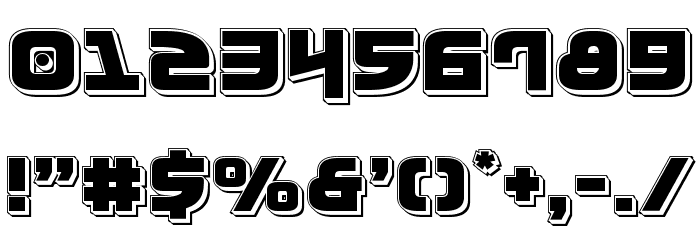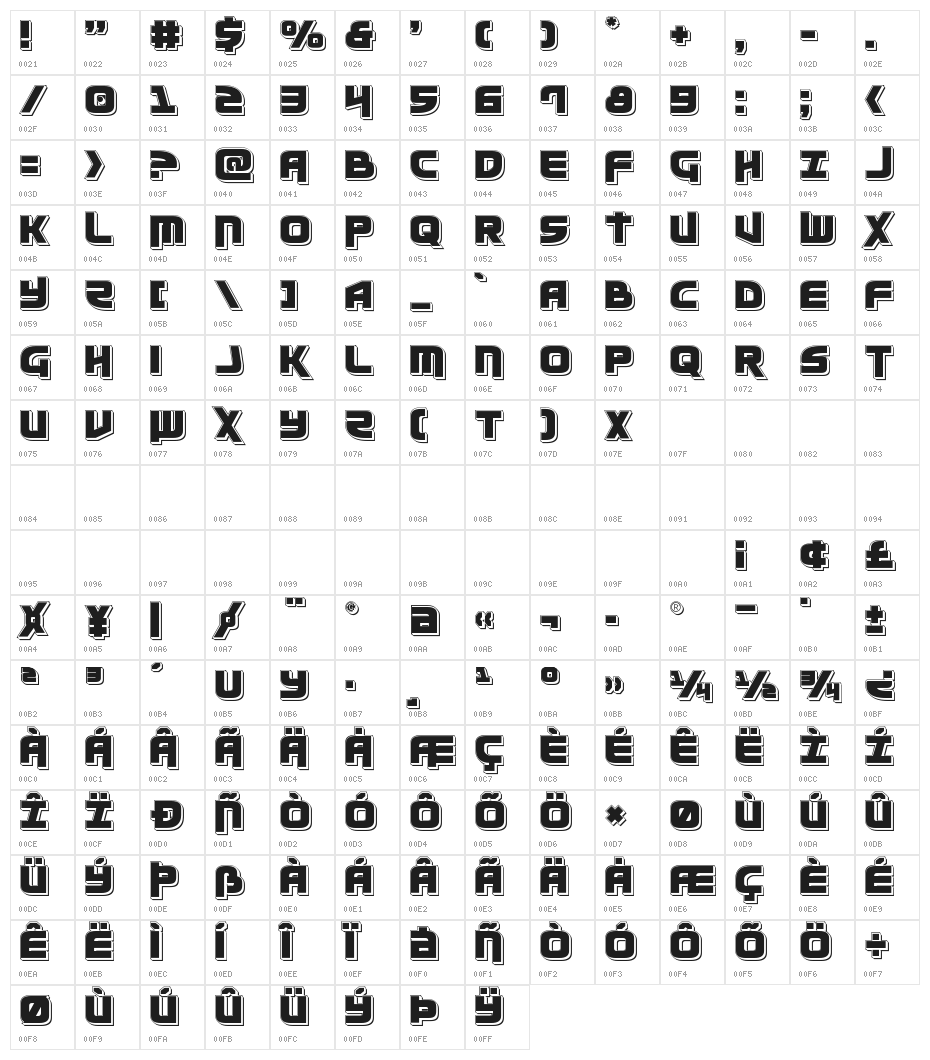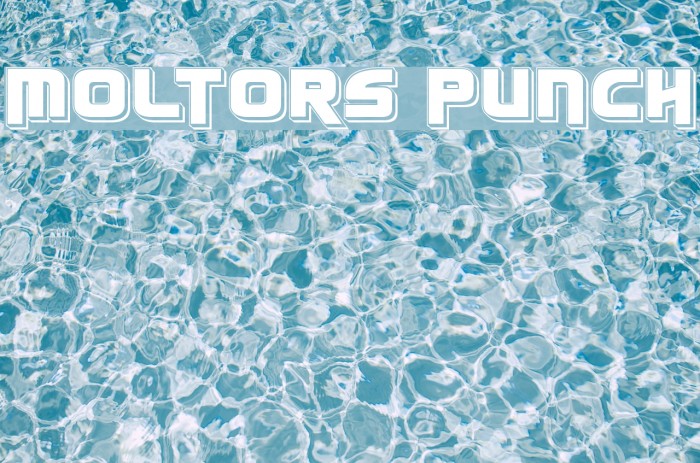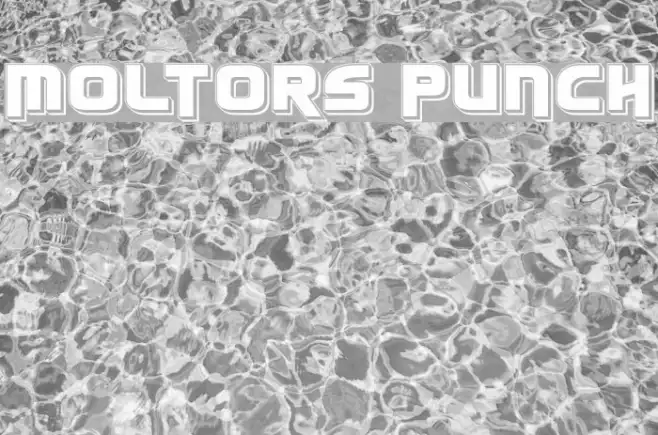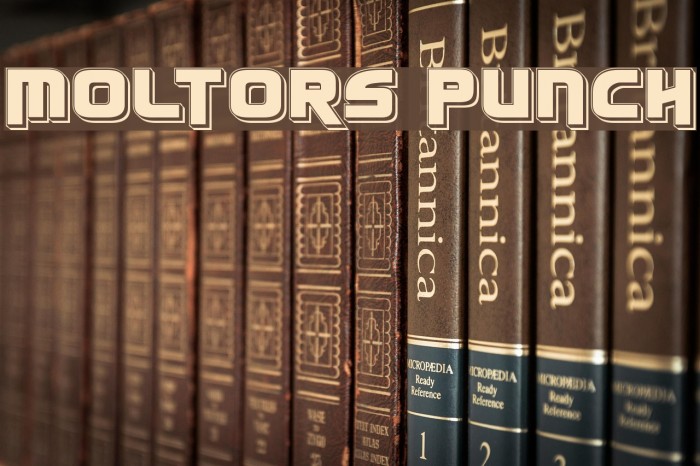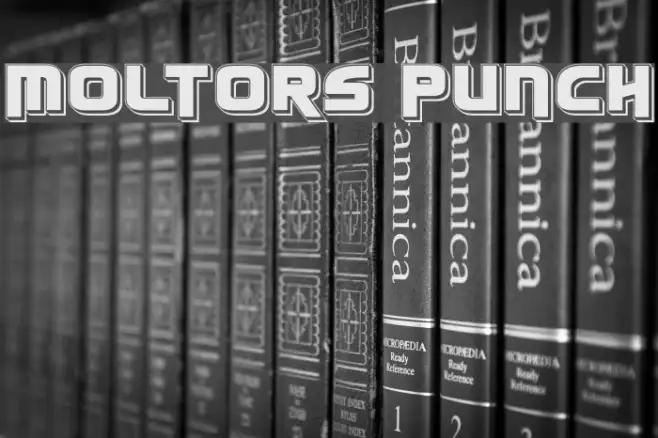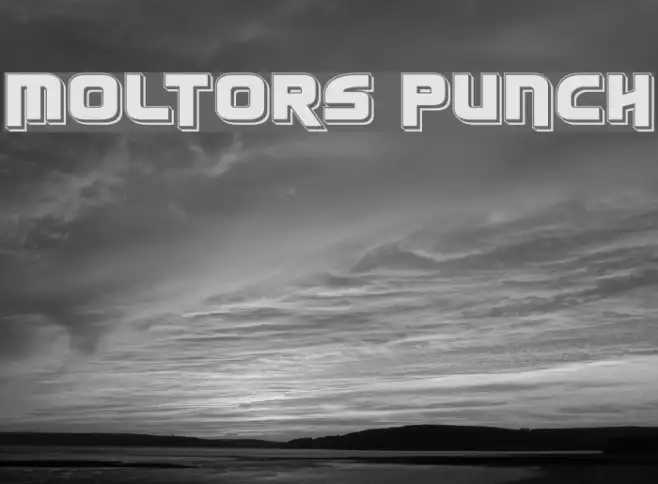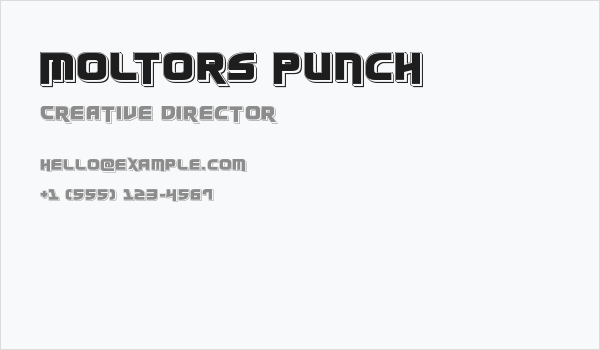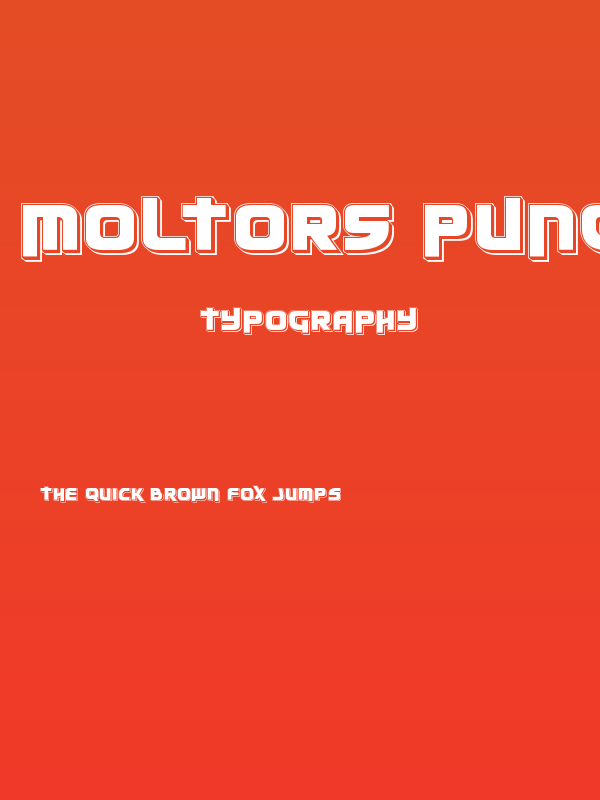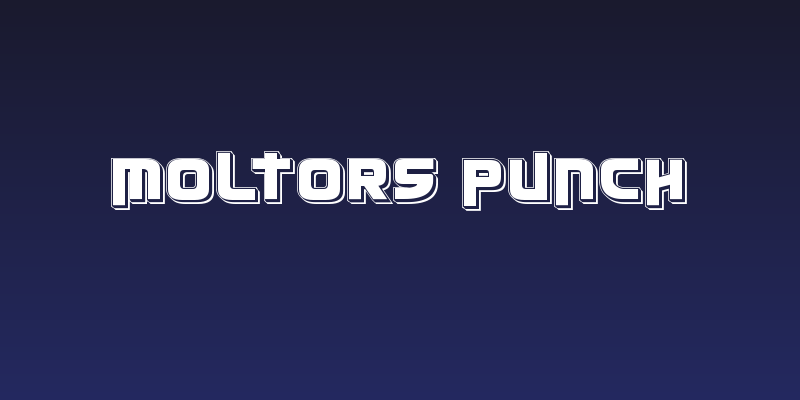
Moltors Punch Font
Moltors Punch Description
This font features a bold, geometric style with a strong presence. The characters are outlined with a thick border, creating a striking contrast between the inner and outer sections. The design is modern and futuristic, with angular edges and a blocky appearance that gives it a robust and impactful look. The uppercase and lowercase letters maintain a consistent style, while the numerals and special characters complement the overall aesthetic. This font is ideal for projects that require a bold statement and a contemporary feel.
| Proposed Projects | Ideal for branding, posters, video game titles, and any project needing a bold, modern look. |